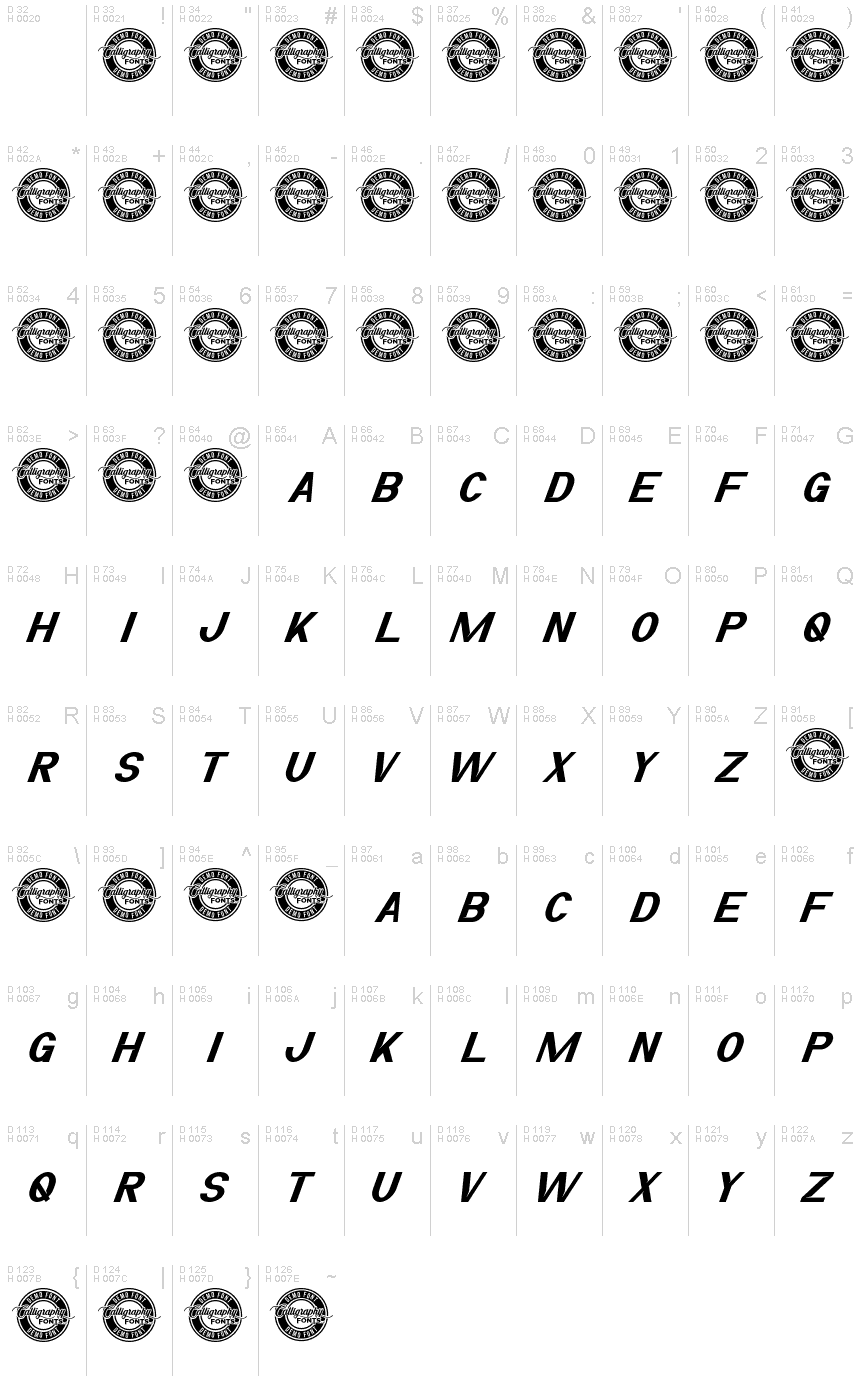
Denham Demo Italic
Denham Italic is a stunning sans serif font that exudes confidence and elegance. With its bold weight and semi-expanded width, this typeface is perfect for headlines, logotypes, and branding projects that require a strong yet refined look. Designed by Calligraphy Fonts, Denham Italic boasts unique curves and strokes that lend a touch of sophistication to any design. Whether you're designing a magazine cover, website header or business card, Denham Italic will add an air of professionalism to your project. Try it out today and elevate your designs to the next level!